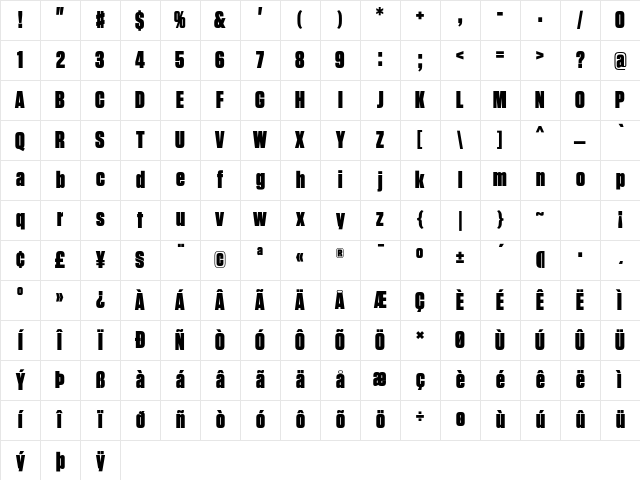
Tungsten Black
Foundry: Hoefler & Frere-Jones
Designer: Hoefler & Frere-Jones
Design Context for Tungsten
Tungsten is a composed and adaptable typeface that performs quietly and consistently across a wide range of design contexts.